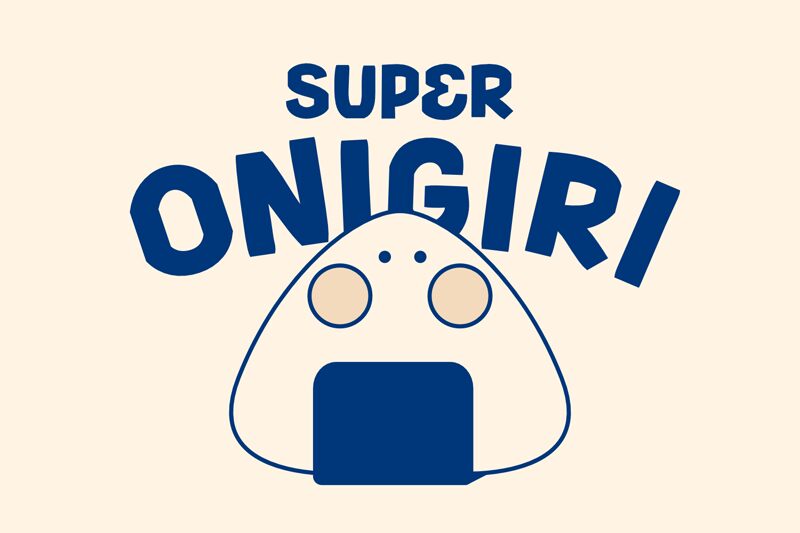
Super Onigiri
Super Onigiri, a captivating display font by fsuarez913, brings a playful touch to any project.
Its cartoon style and bold weight make it perfect for children's books, comic strips, and video game designs. With its semi-expanded width, this font stands out on posters, banners, and packaging labels. Let your imagination run wild as Super Onigiri adds a dash of fun and excitement to your creations. Embark on an adventurous journey with this unique typeface that is sure to leave a lasting impression.
Unleash the power of Super Onigiri and let your designs come alive!